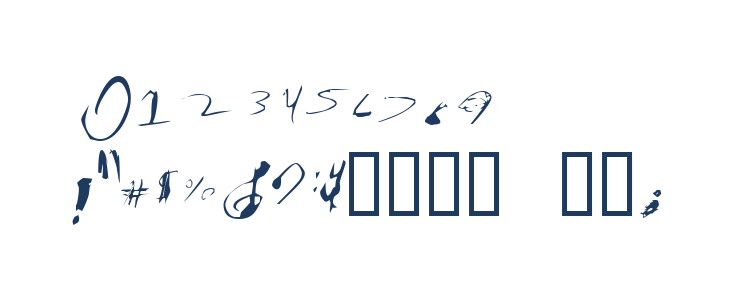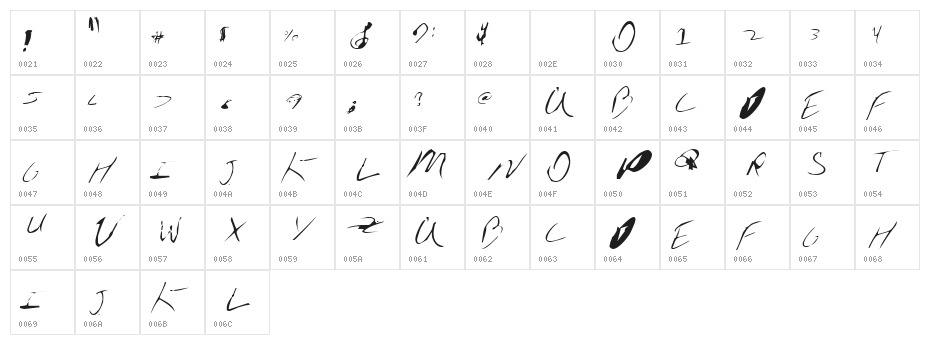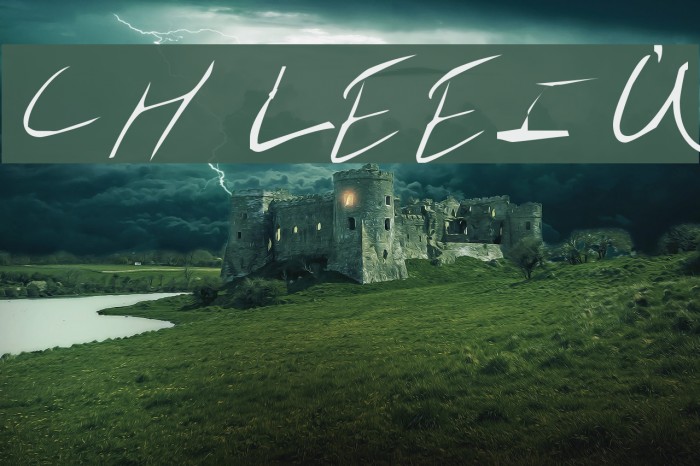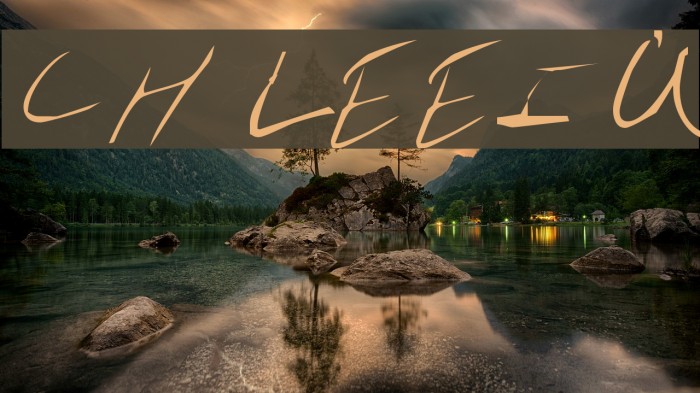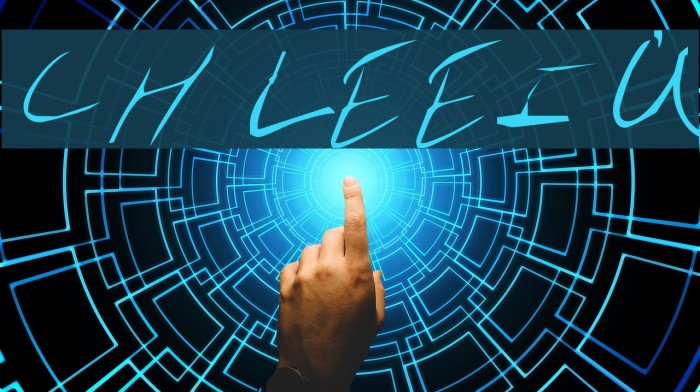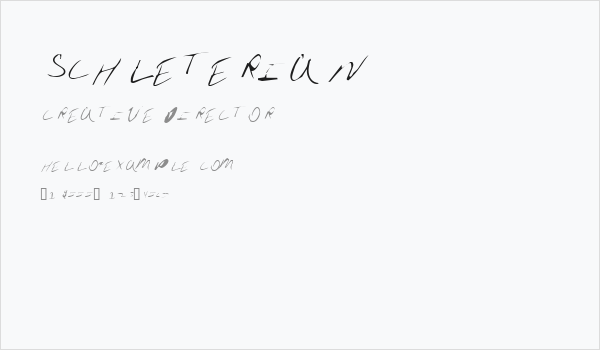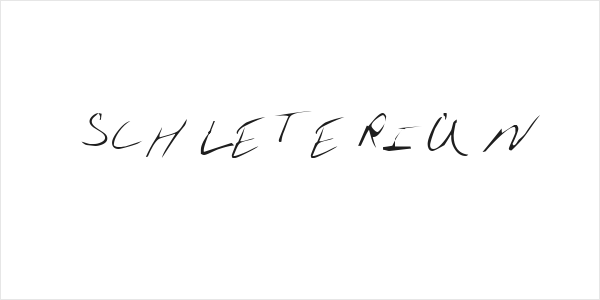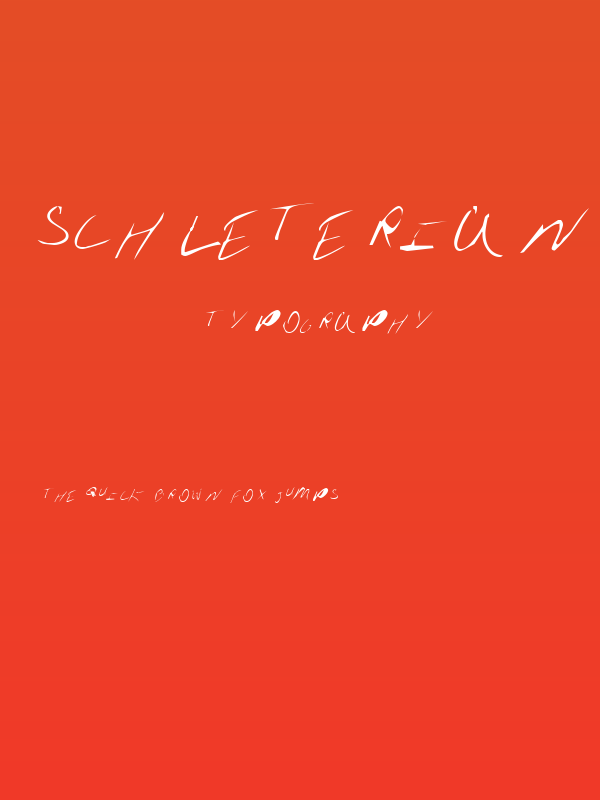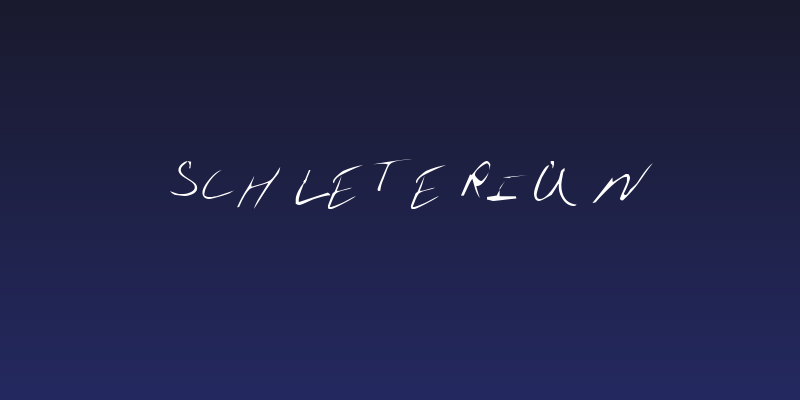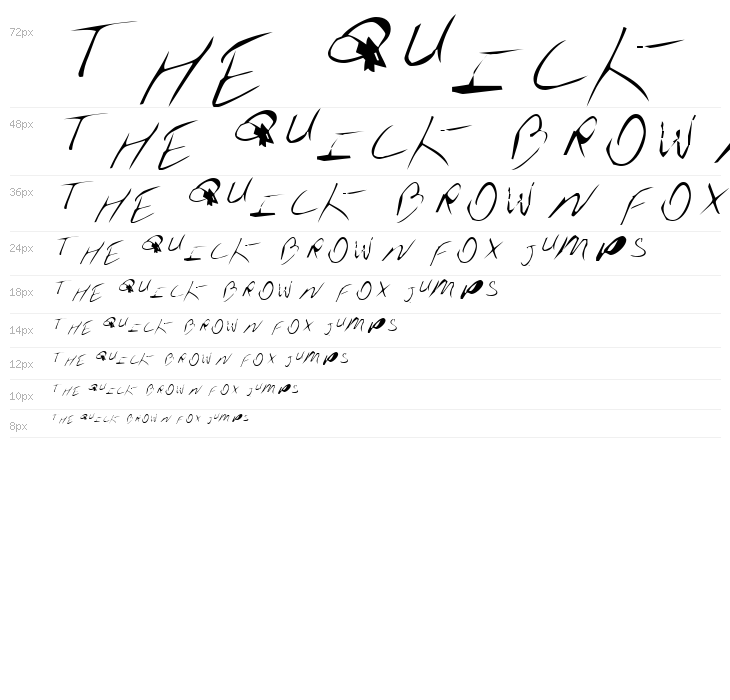
schleterian Font
schleterian Description
This font exhibits a dynamic and expressive style, characterized by its fluid, handwritten appearance. The strokes are varied, with some letters featuring bold, thick lines while others are more delicate and thin. This creates a high contrast that adds to the font's energetic and lively feel. The uppercase and lowercase letters maintain a consistent flow, with certain characters like 'B' and 'P' standing out due to their unique, artistic flair. The numbers follow a similar style, with exaggerated curves and angles that enhance the overall aesthetic. Special characters are creatively designed, adding to the font's decorative appeal. The spacing between characters is relatively tight, contributing to a cohesive and compact look.
| Use Case | Logos, Invitations, Artistic Posters |
| Proposed Projects | Ideal for creative projects such as logo design, branding, invitations, and artistic posters where a personal, expressive touch is desired. |